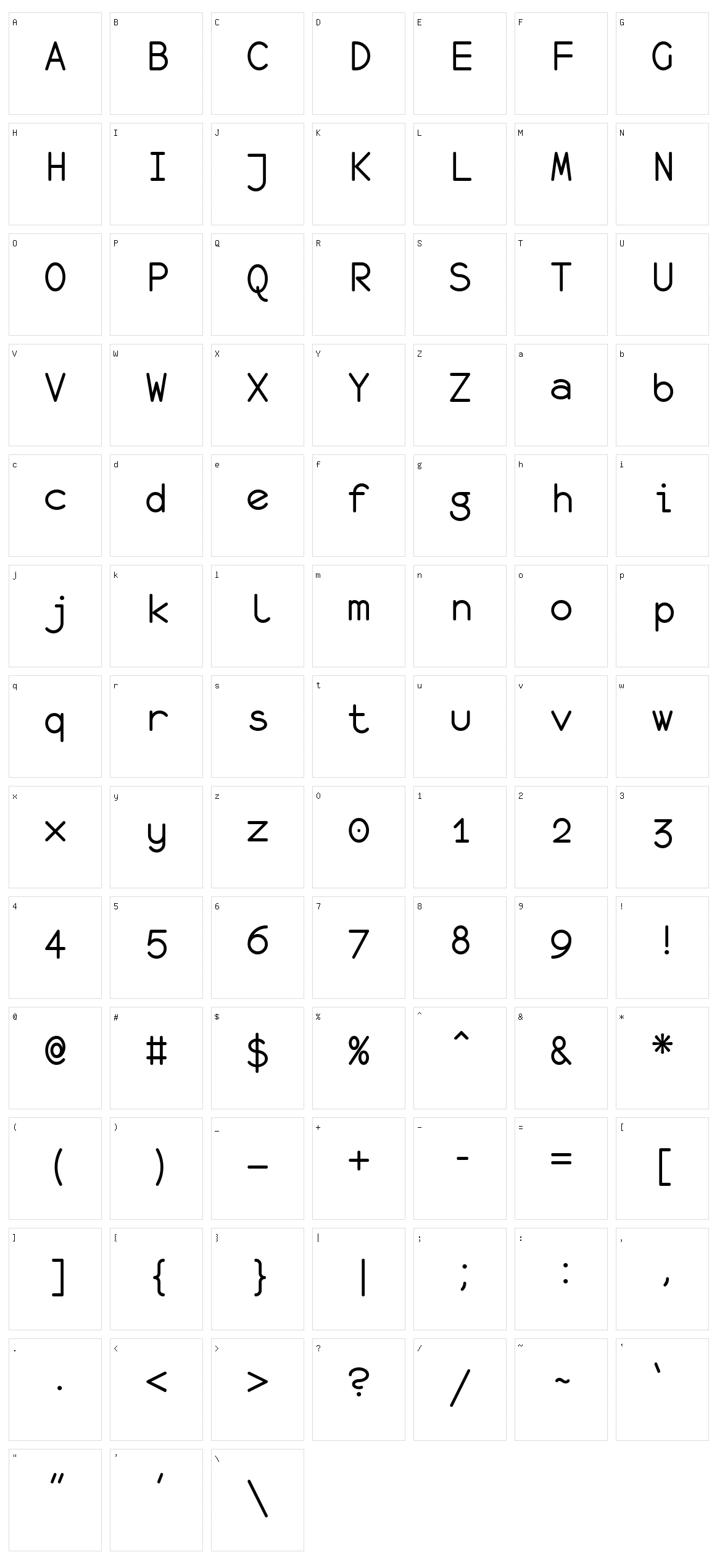
The monofur typeface by tobias b koehler (unci@tigerden.com)
This is a monospaced geometric rounded sans serif font based on the
eurofurence typeface family.
The character set includes Roman, Greek and Cyrillic characters as well